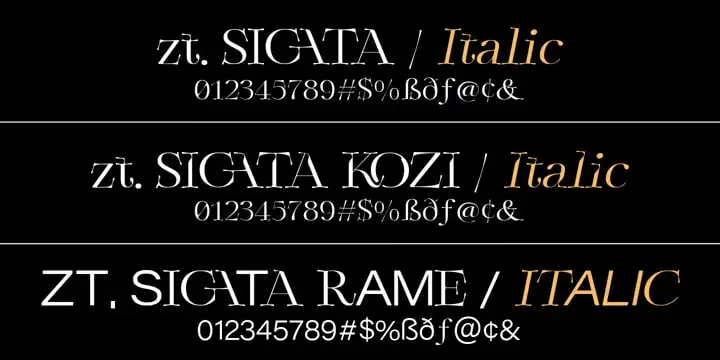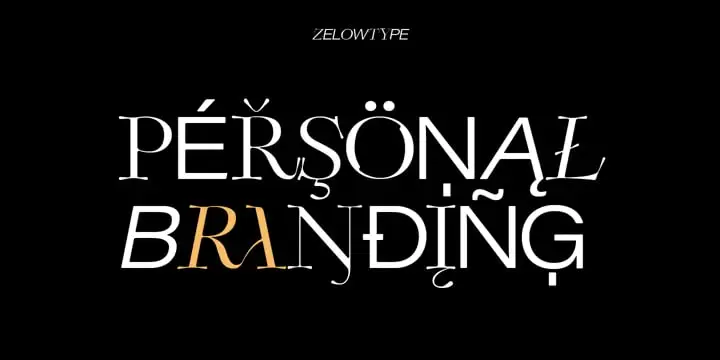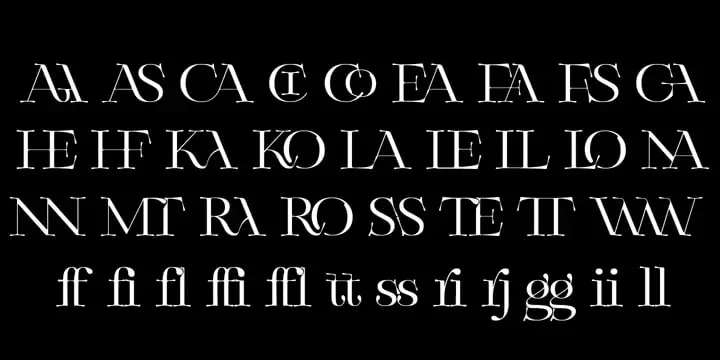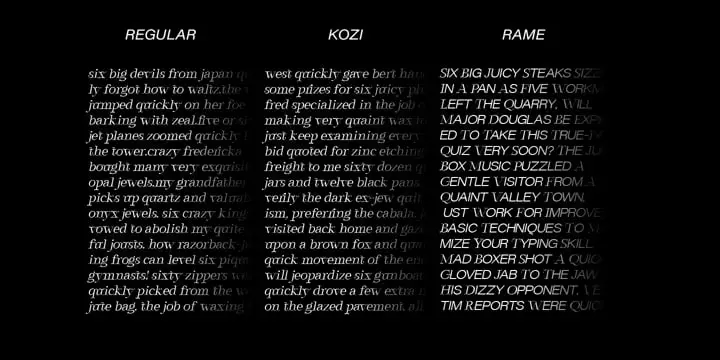
Zt Sigata Font
The Zt Sigata Font is a versatile typeface designed to elevate your creative projects. With its unique blend of modern and classic styles, this font is perfect for a variety of applications including branding, logos, web design, and print materials.
• Multiple weights for flexibility
• Stylish uppercase and lowercase letters
• Supports a wide range of languages
• Clean and legible design
• Ideal for branding and logo design to create a memorable identity
• Use in web design for a modern look
• Perfect for print materials like business cards and brochures